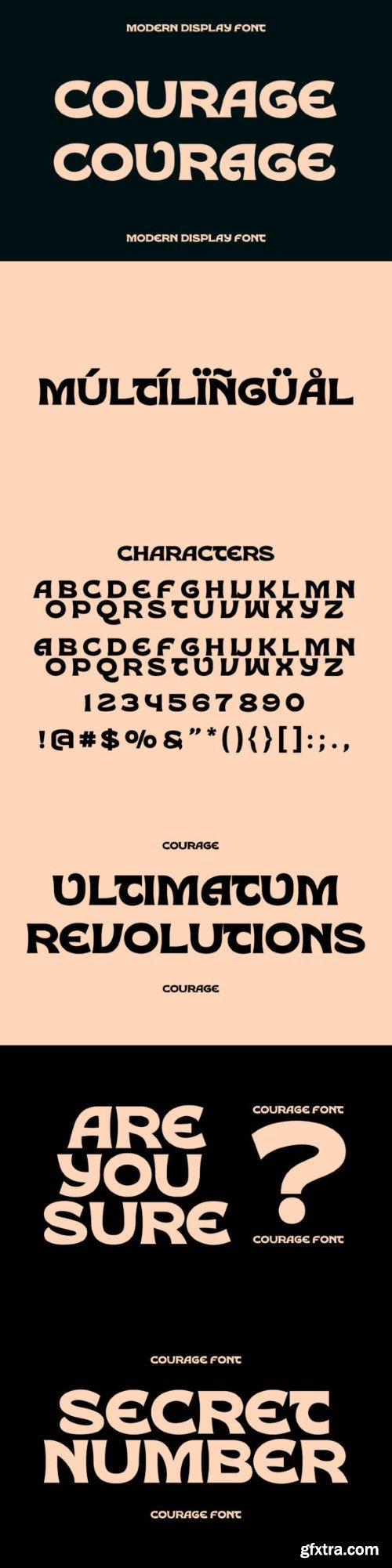
勇气字体
Courage is a splendid display font that perfectly combines vintage and classic styles. Make your designs look more classic and special with Courage – you’ll love the results!